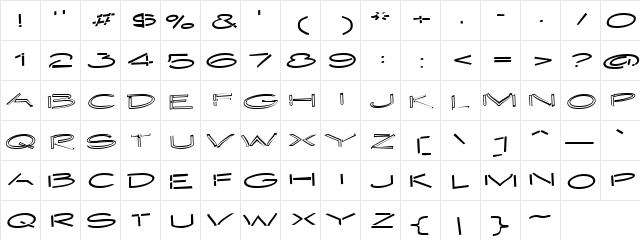
Embargo Regular Free Font
Embargo Regular
Design Context for Embargo
Embargo is a composed and adaptable typeface that performs quietly and consistently across a wide range of design contexts.